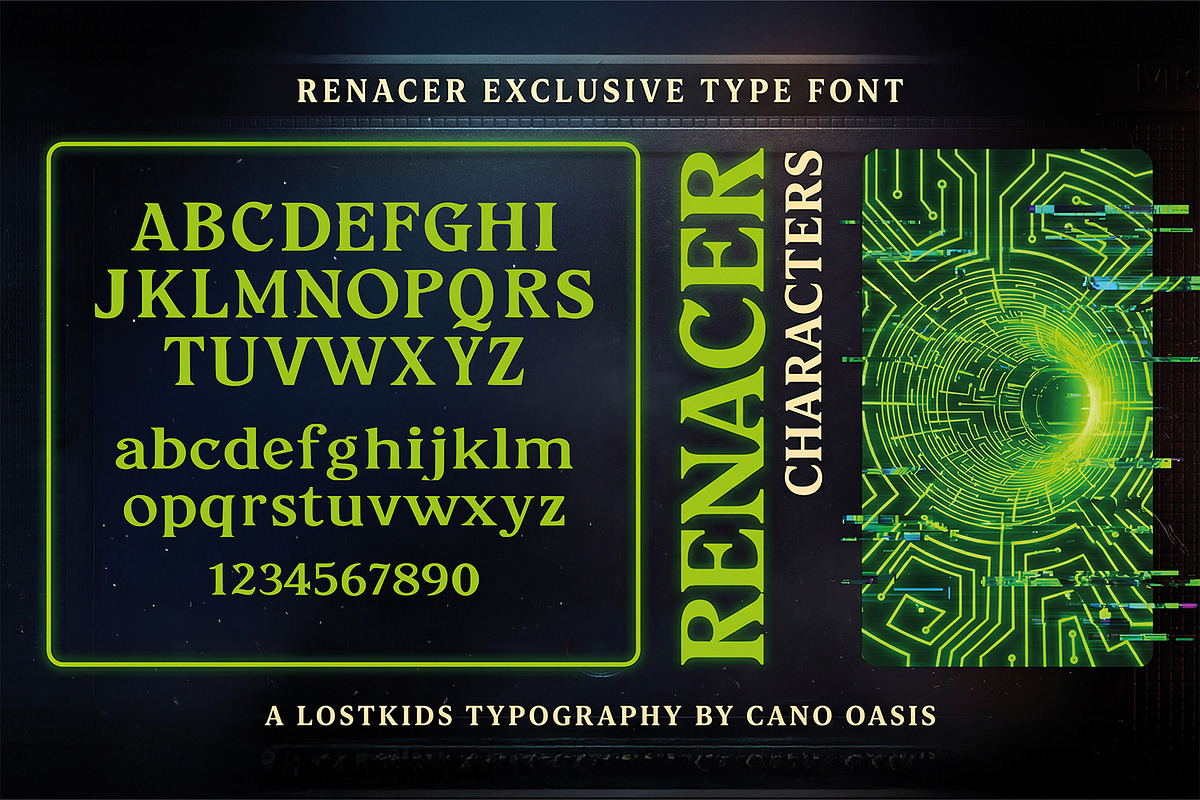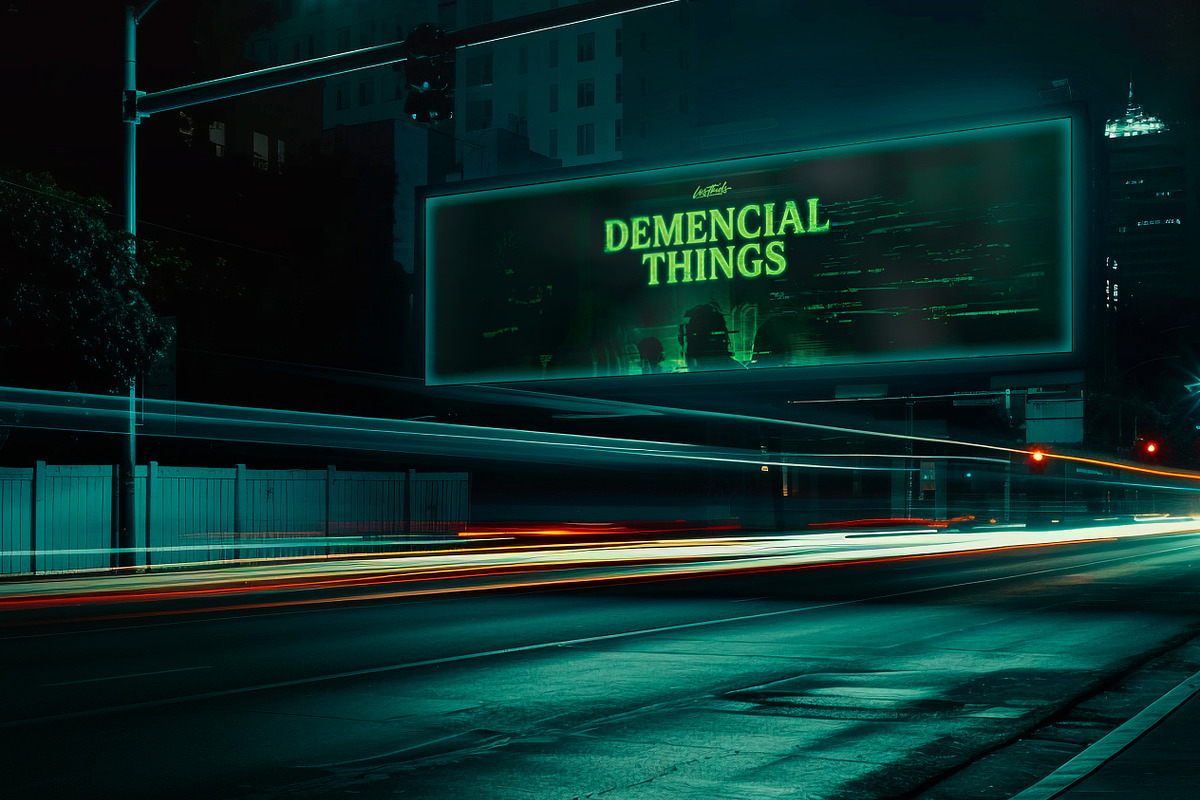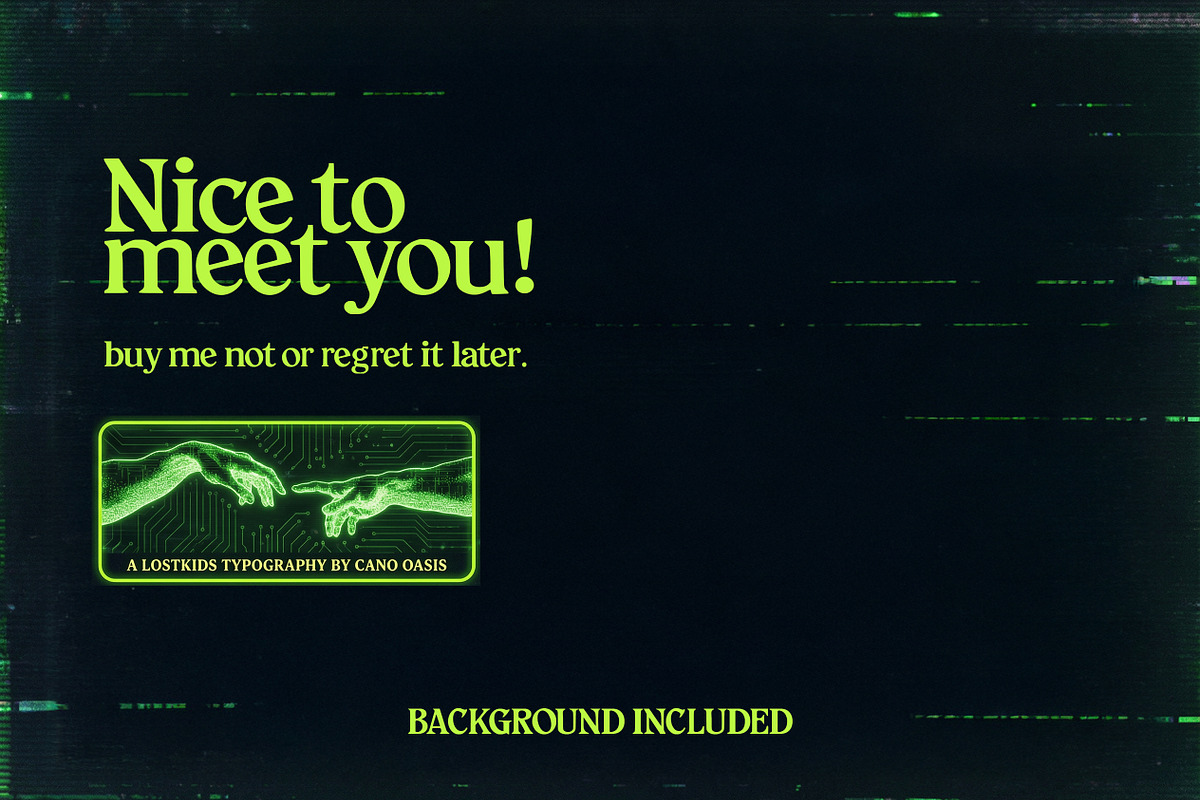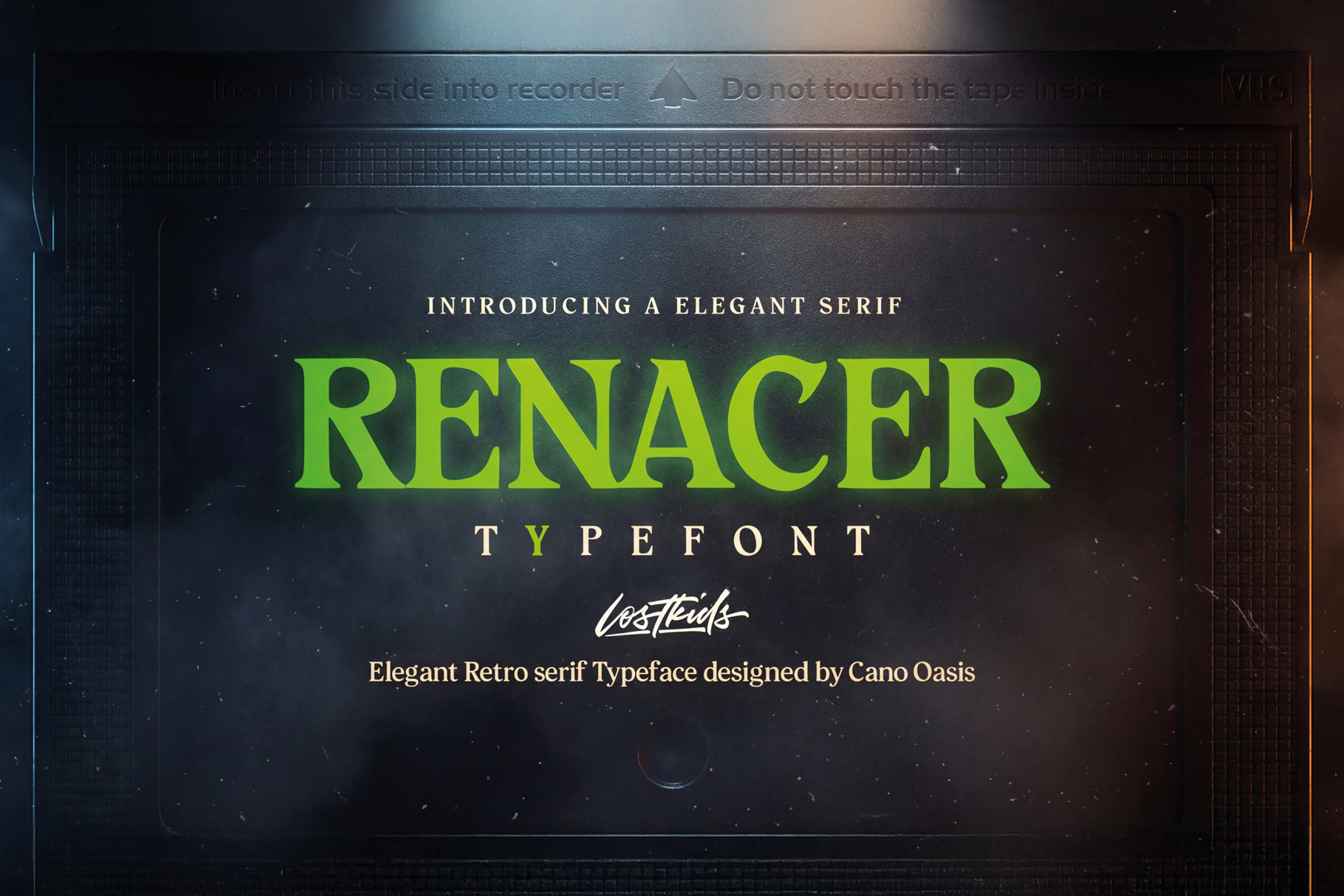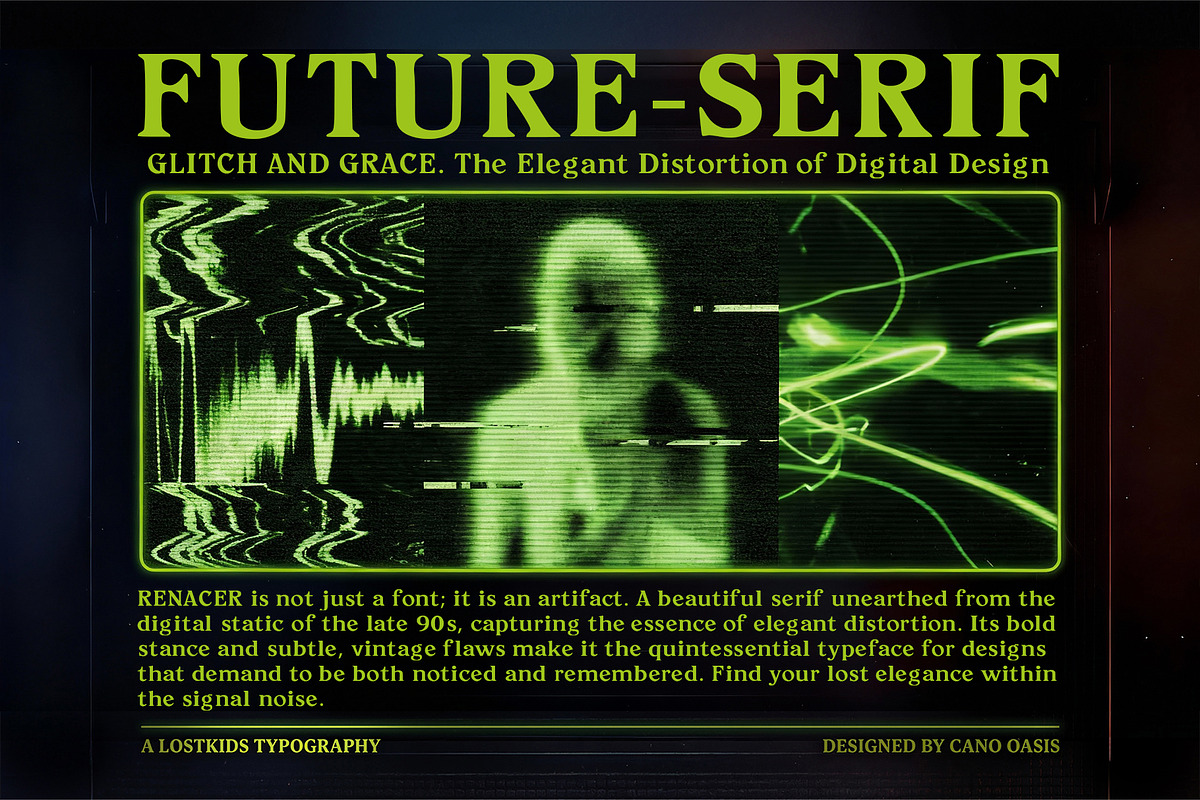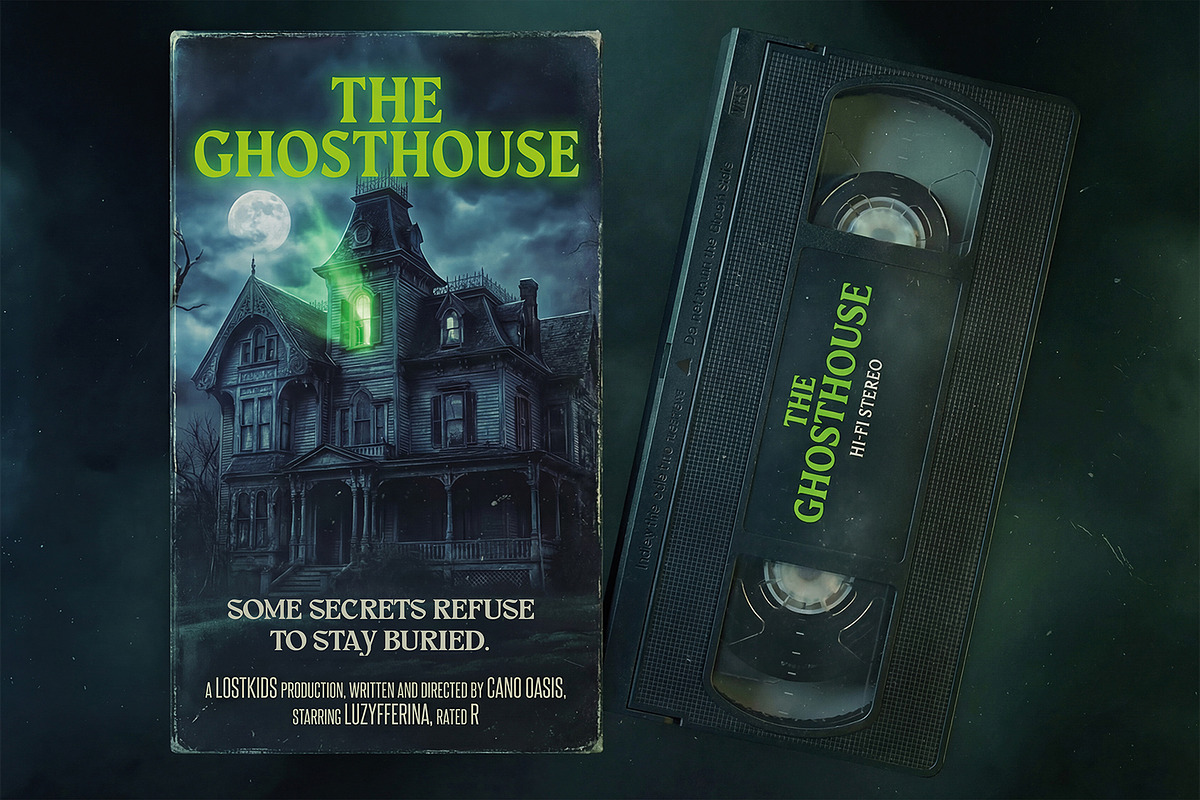
RENACER | Future serif Font
RENACER is not just a typeface; it is a digital artifact unearthed from the elegant distortion era of the late '90s. This is the definitive Future-Serif font that flawlessly captures the Retro-Vintage and Sci-Fi Glitch aesthetic, making it indispensable for any project that needs to be bold, noticed, and instantly iconic.
Inspired by the glowing green titles of VHS horror tapes and the gritty, mysterious graphics of 80s and 90s media, RENACER marries the authority of a classic Serif with the rebelliousness of digital signal noise. Its robust stance and subtle, vintage flaws create a perfect blend of Glitch and Grace—a truly magnetic combination.
Maximum Impact: With a unique style reminiscent of titles from shows like Stranger Things or cult sci-fi/horror films, RENACER guarantees your design will achieve instant visibility and avoid the scroll death.
Ultimate Versatility: Perfect for creating striking book covers, iconic movie posters, edgy streetwear branding, retro video game titles, or any header demanding a sense of stylish, haunting elegance.
A Lostkids Typography designed by Cano Oasis.